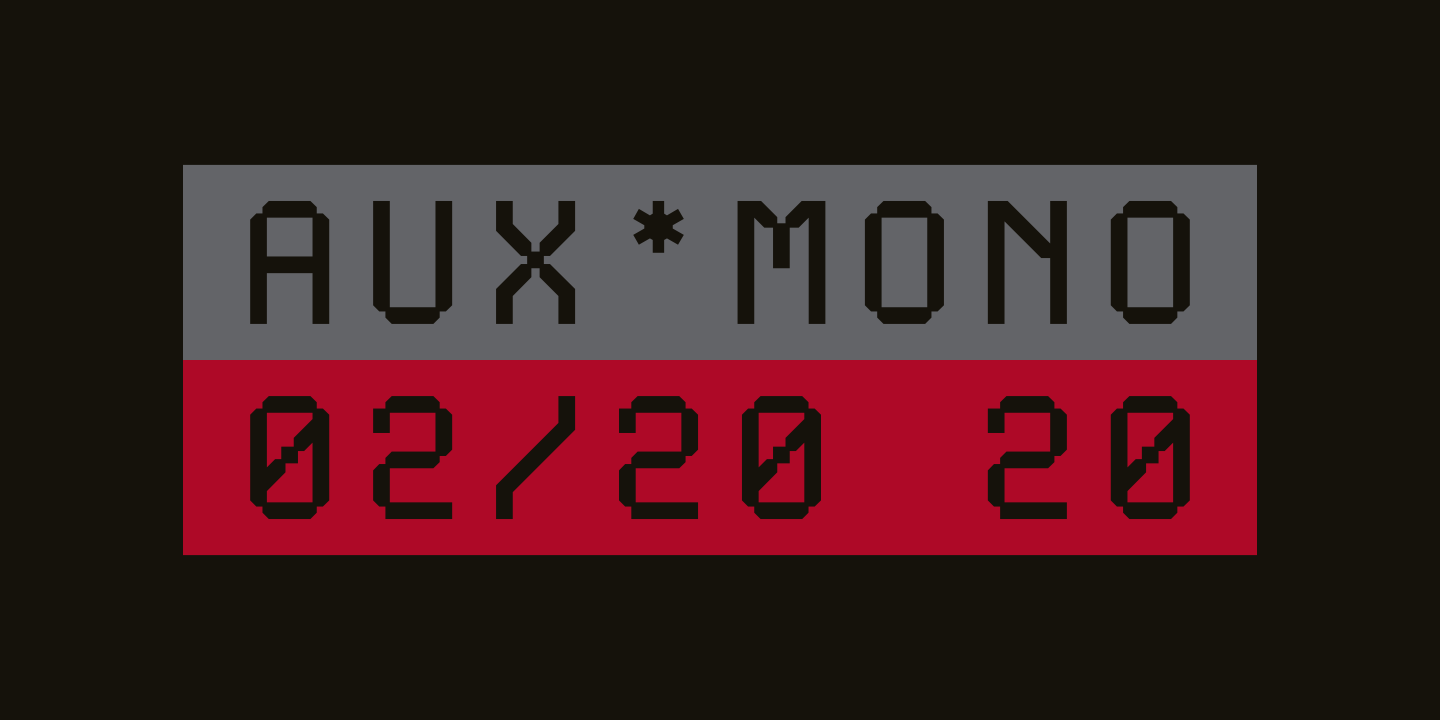
Power up your development workflow with Aux Mono Font Free Download – a meticulously engineered monospace typeface designed for clarity, comfort, and extended coding sessions. This modern programming font combines the best of functional typography with subtle personality, featuring distinctive letterforms that reduce eye strain without sacrificing technical precision.
Why Developers Choose Aux Mono:
Pixel-Perfect Alignment at common terminal sizes
Enhanced Character Differentiation (0/O, 1/l/I)
5 Weight System including Light and SemiBold
Optimized for Dark/Light IDE Themes
Technical Applications:
Software development environments
Technical documentation and manuals
Terminal/command line interfaces
Data visualization dashboards
Engineering schematics
Complete programming character set
Powerline and Nerd Font symbols
Box drawing and diagramming glyphs
Developer Tip: The SemiBold weight works exceptionally well for syntax highlighting. Includes special glyphs for Kubernetes and Docker developers.